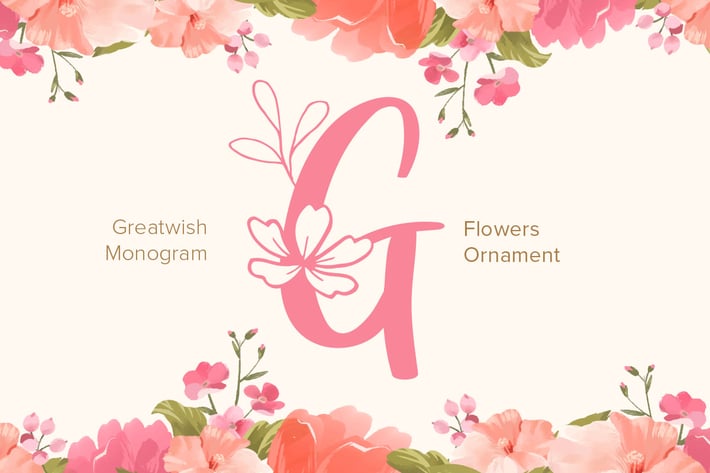
Great Wishes Monogram Font
Great Wish Monogram is a lovely decorative font, featuring a flower ornament. Fall in love with its authentic feel and use it to create gorgeous wedding invitations, beautiful stationary art, eye-catching social media posts, and cute greeting cards.